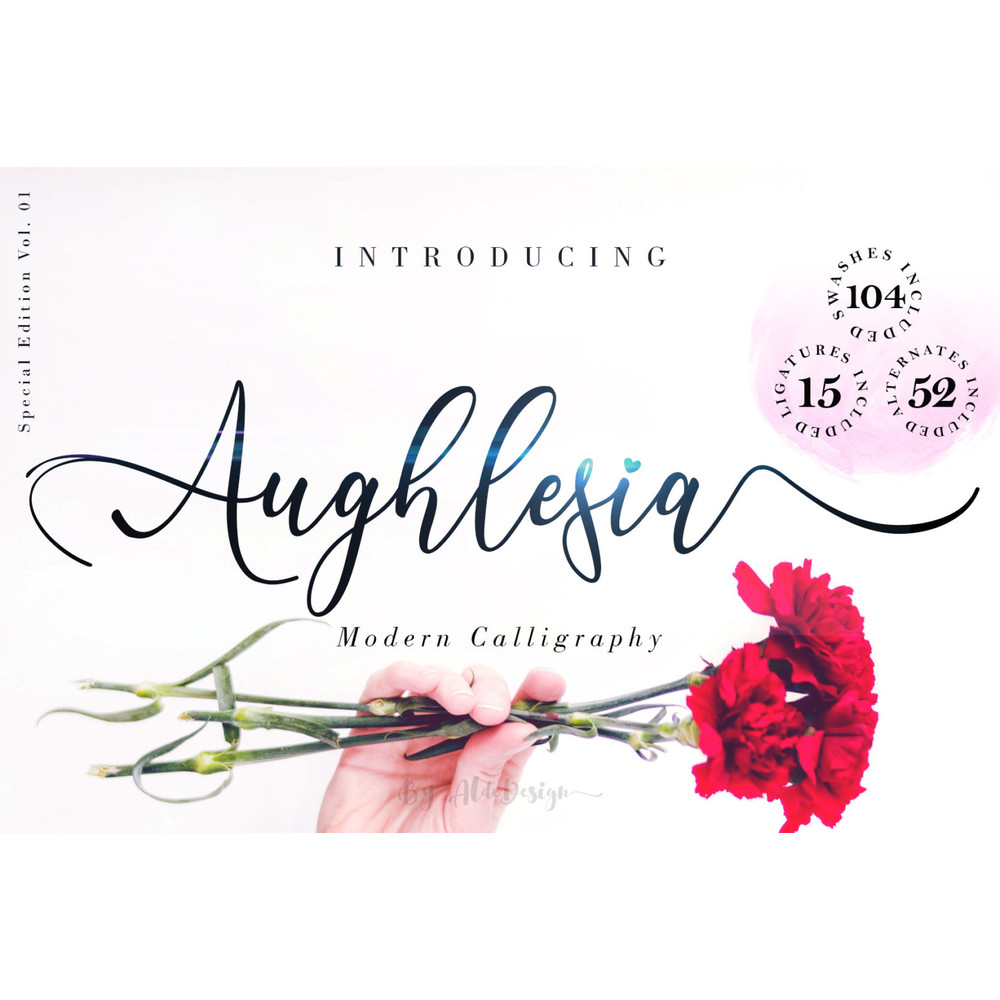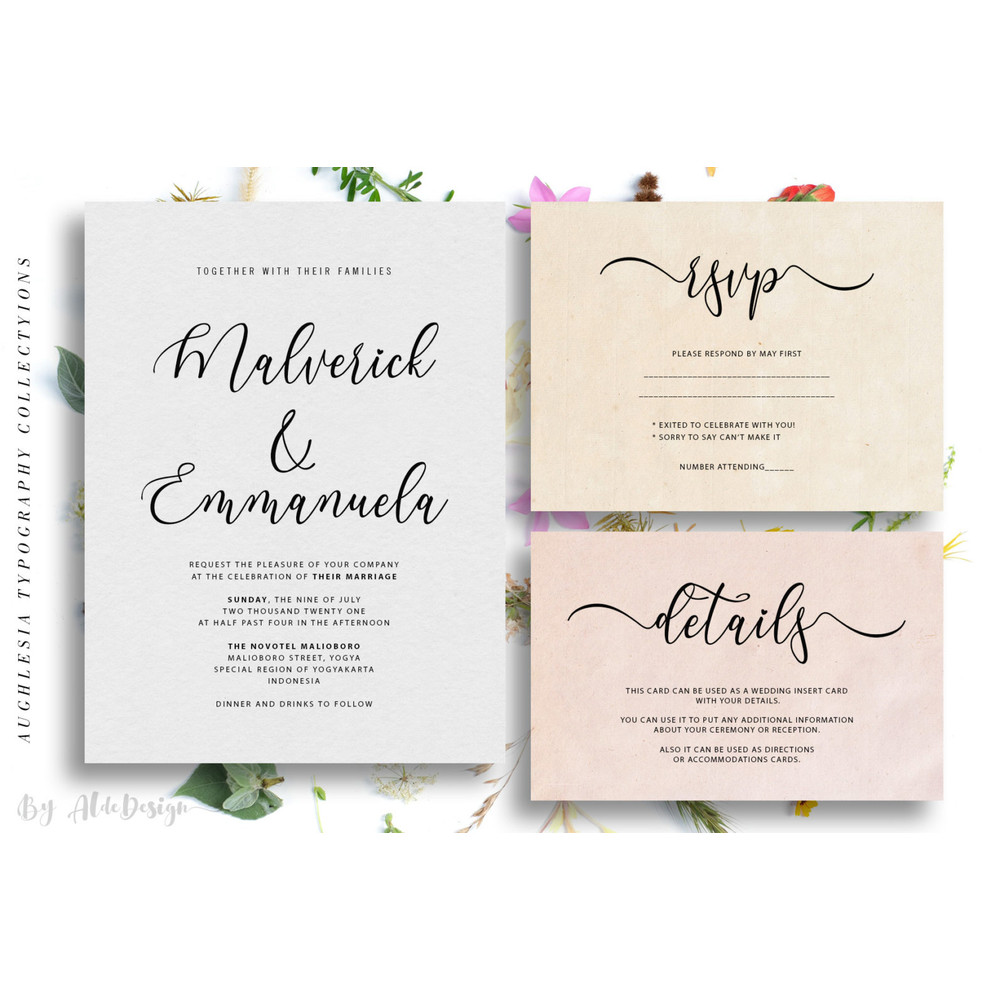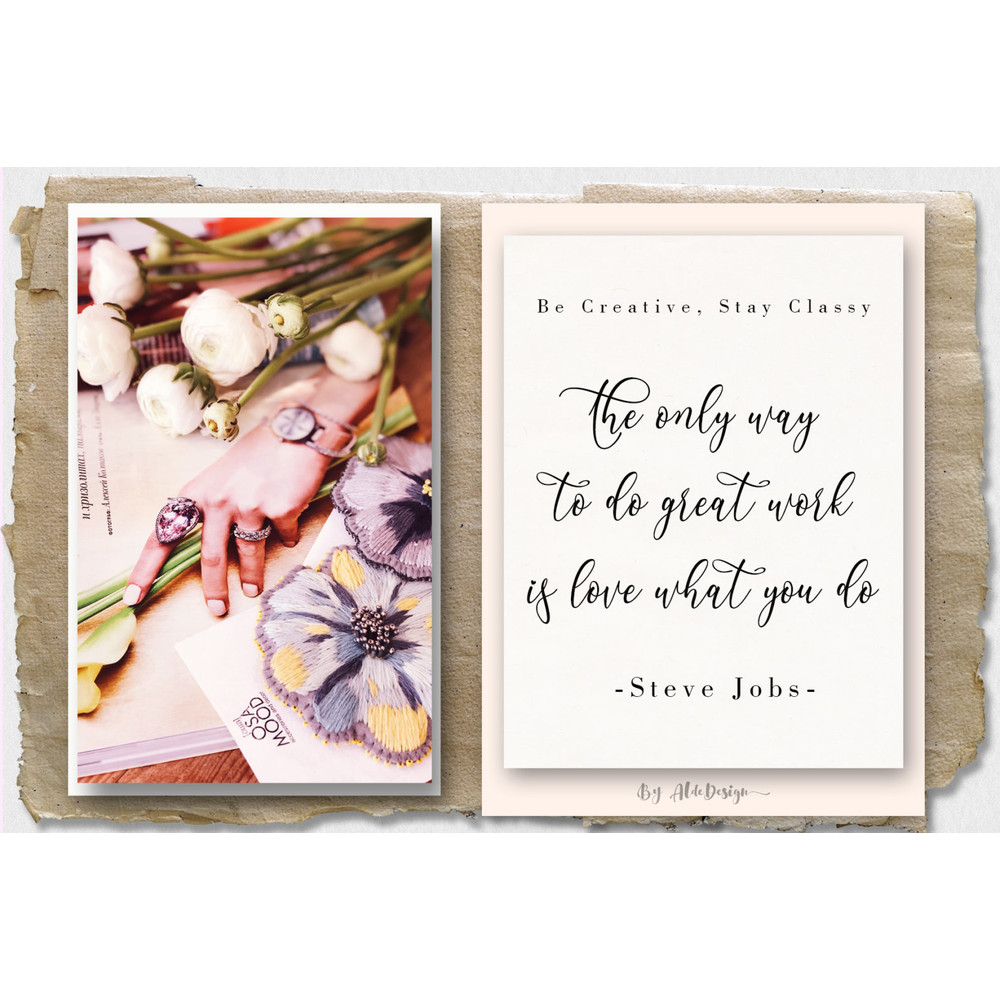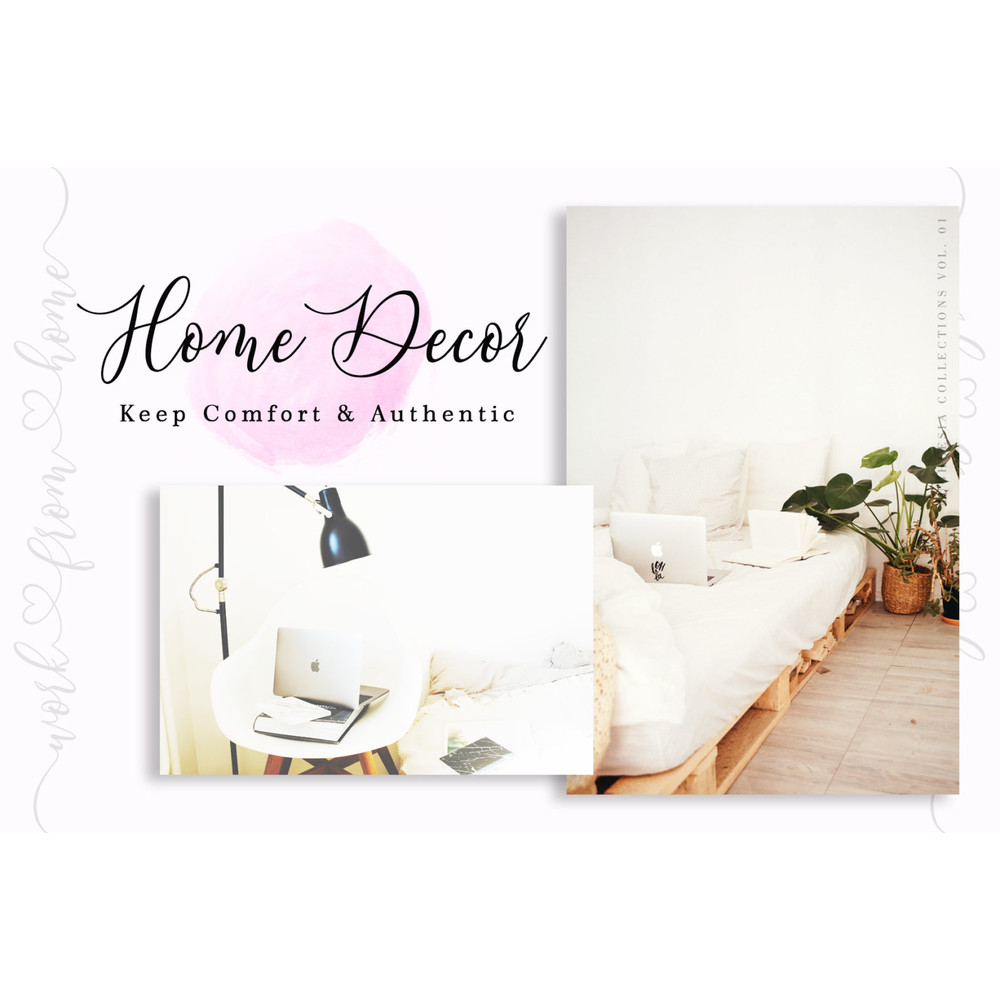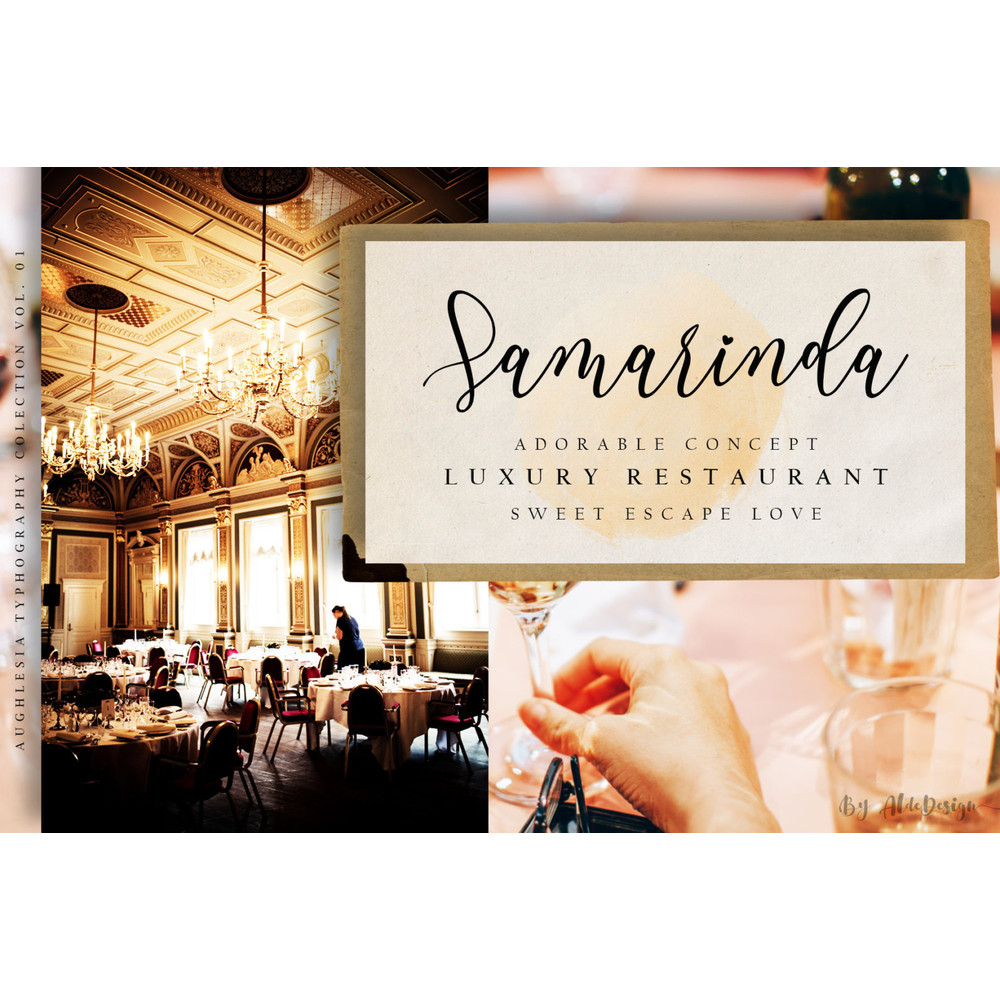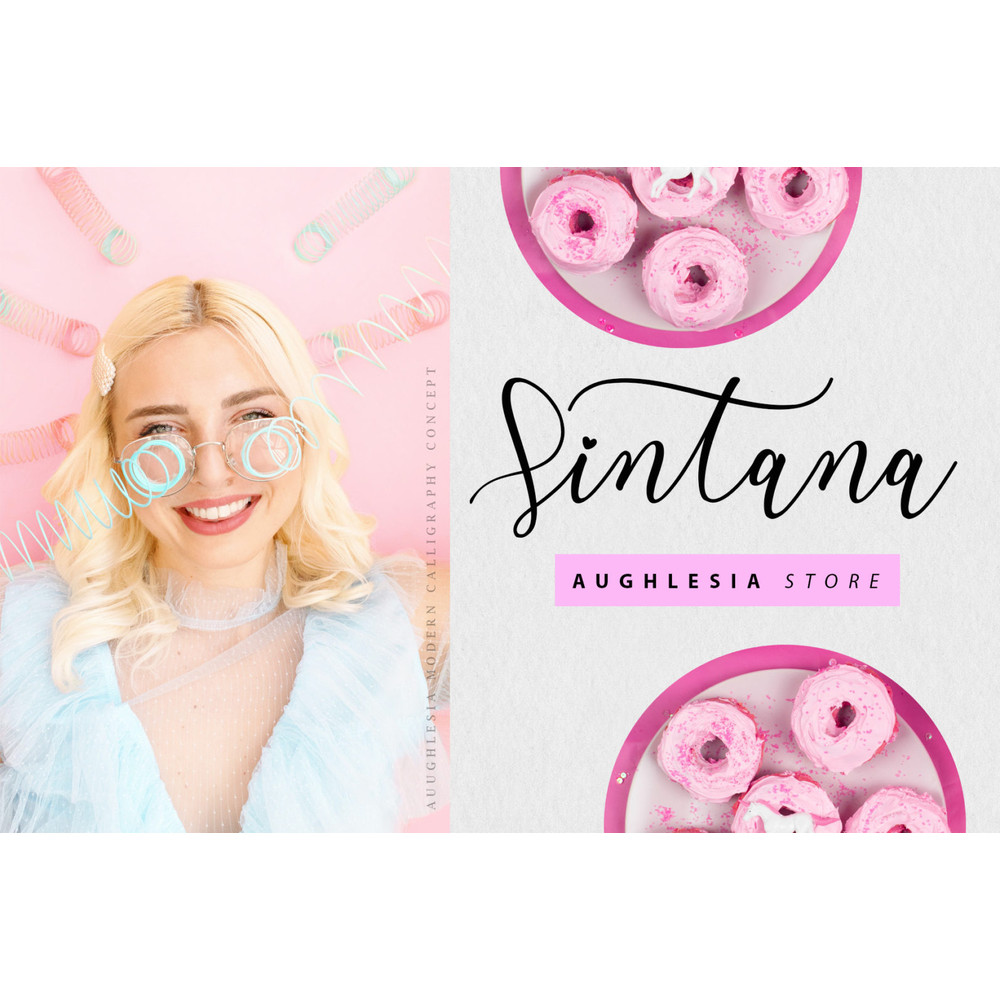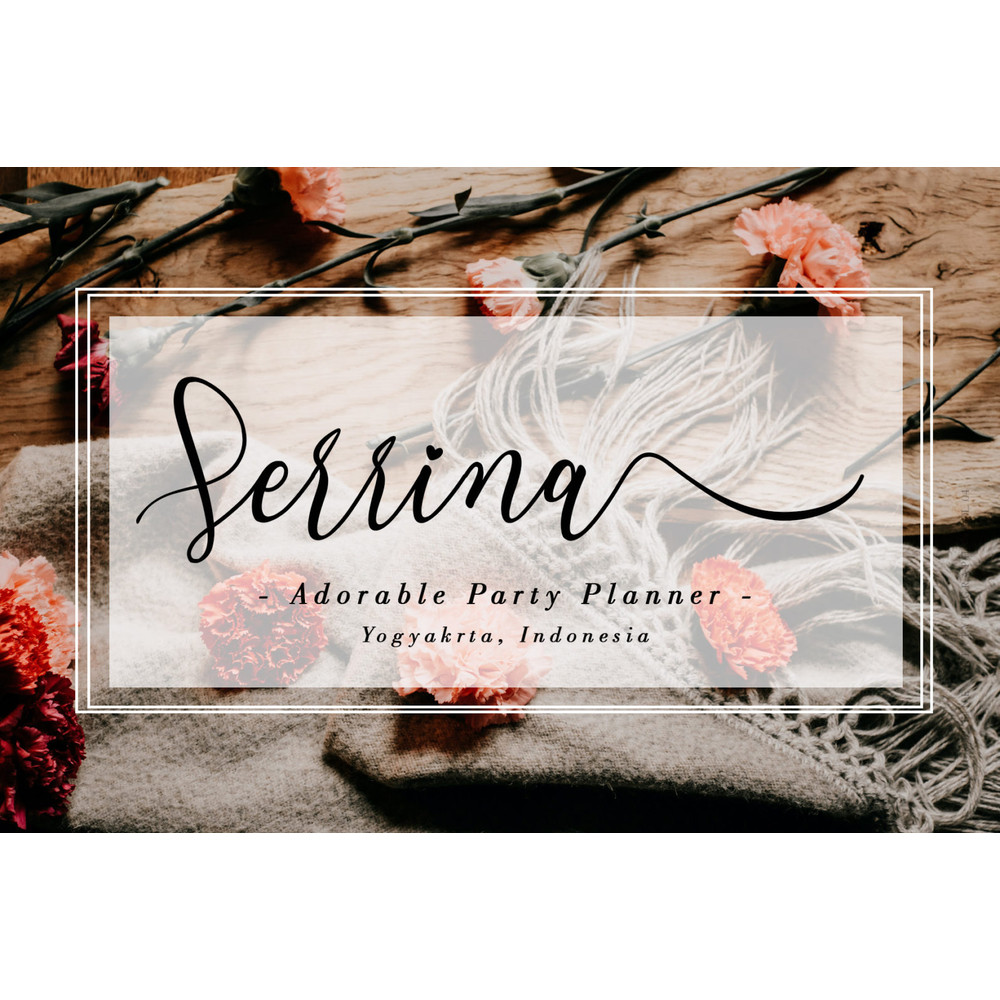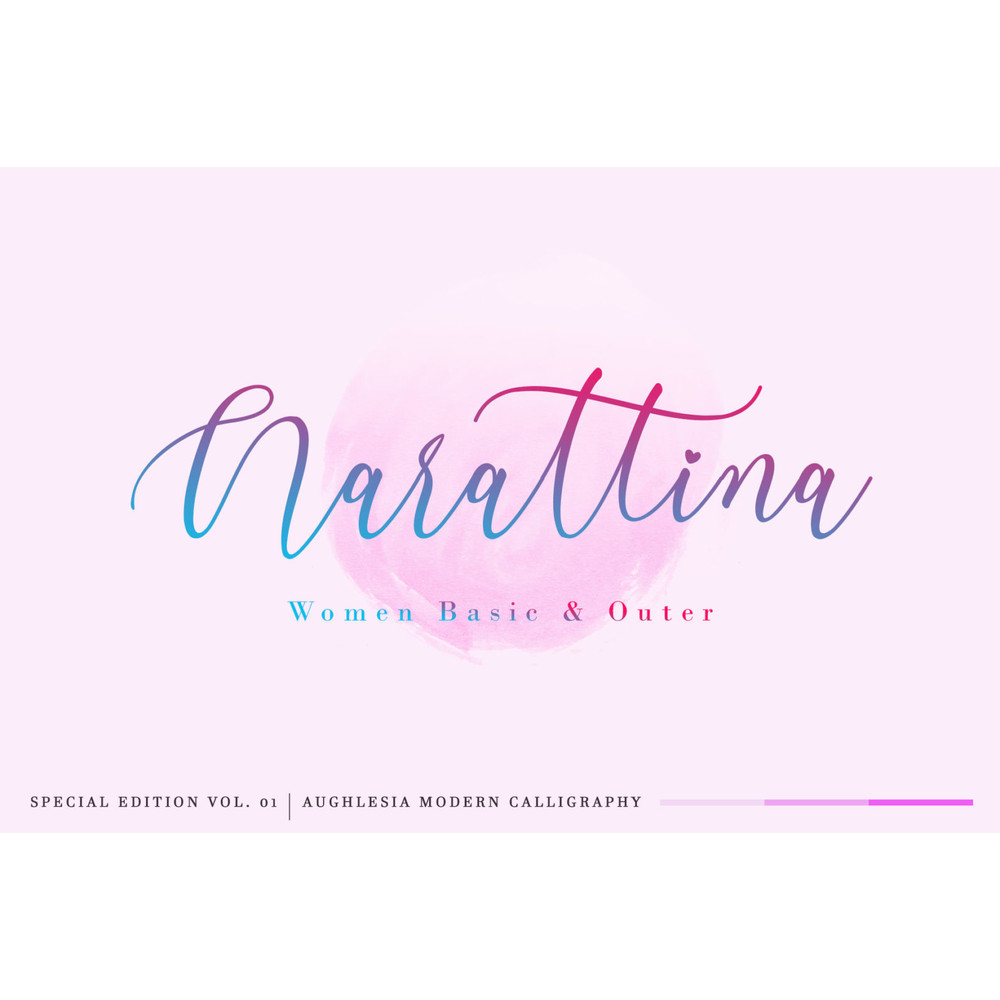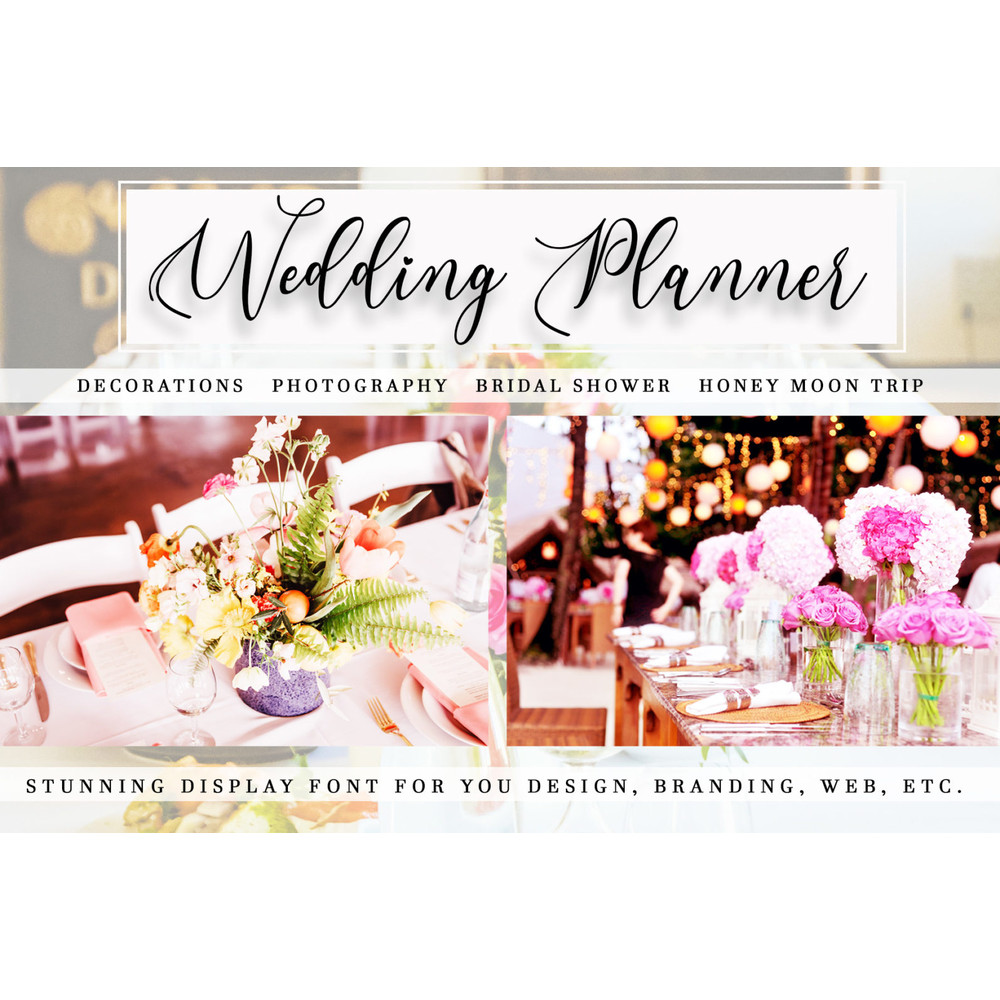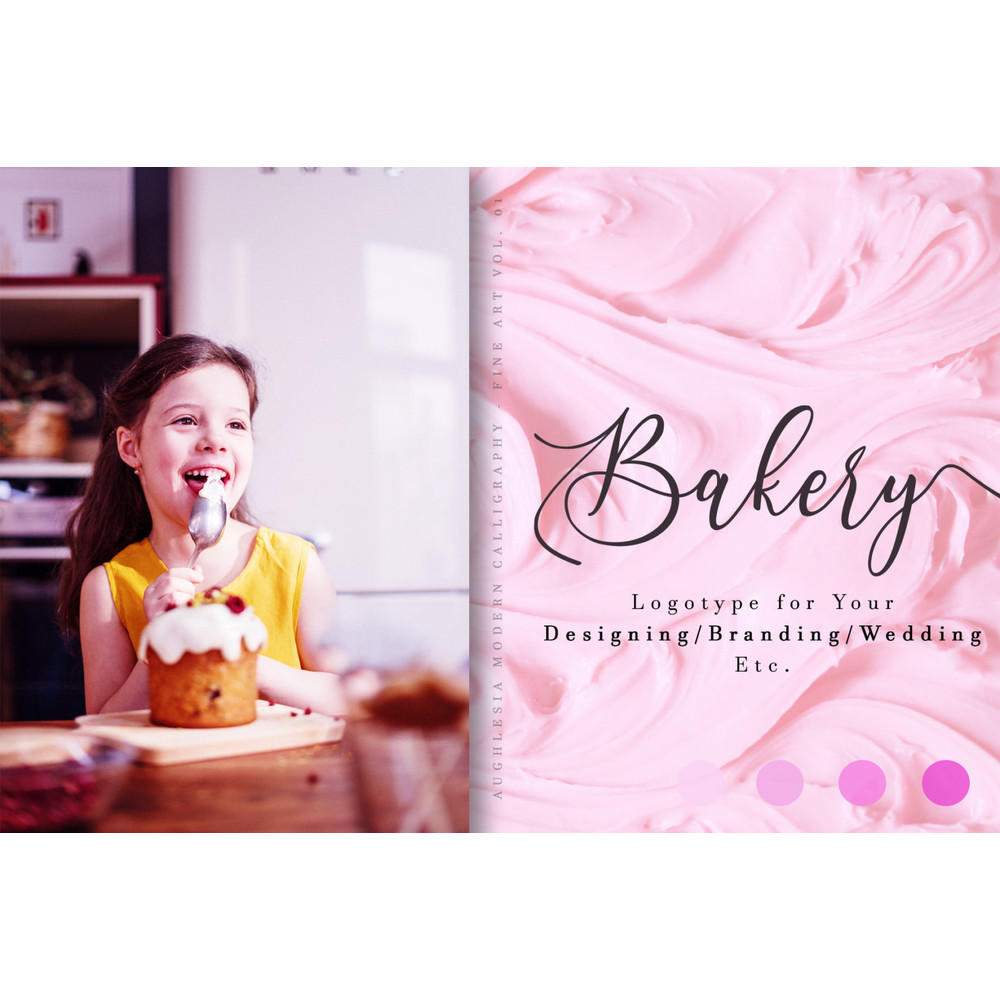
Aughlesia \ Modern Calligraphy is a stylish script font that features a varying baseline, smooth line, modern, and with a depth love. For those of you who need a touch of love and modernity for your designs or branding, it can be used for various purposes such as headings, wedding, invitation, signature, logos, branding, t-shirt, letterhead, signage, labels, news, posters, badges, etc.
We design this font with OpenType features to give an artistic touch on it. This font is also applicable for numbers, punctuation, and other languages. It is also a multifunction font where you can use for a business logo, branding, wedding invitation, and anything you want.
-Stylish modern handwritten script
-Beautiful Swash (Ending tail)
-Beautiful Titling (Beginning tail)
-Special Ligatures
-Multilingual Support